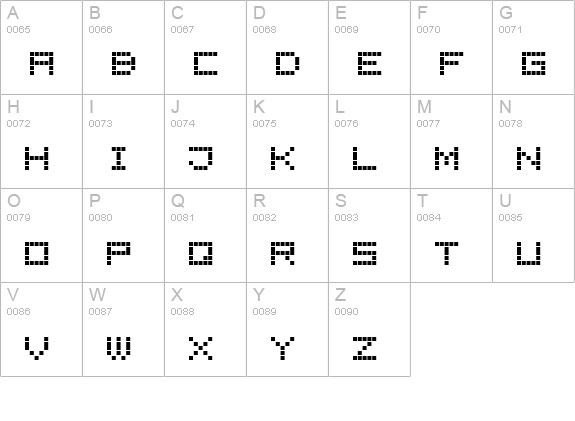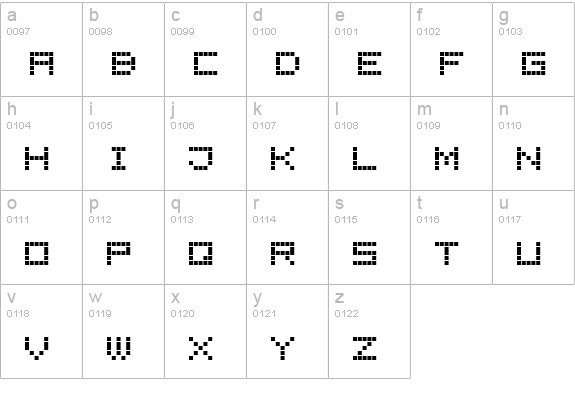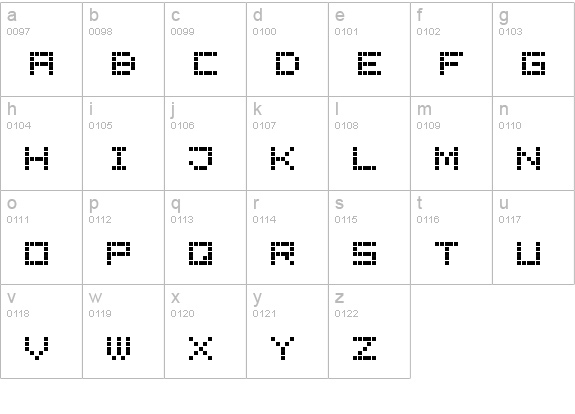
LED Display7 Font Details
LED Display7 font is a stunning and eye-catching typeface that will surely grab attention and make any design project stand out. This font is perfect for any digital or electronic-themed design, as it mimics the appearance of LED lights, providing a modern and futuristic feel. The LED Display7 font features bold and sharp characters that are easy to read, even from a distance. Its unique design adds a touch of sophistication and professionalism to any project, making it ideal for advertisements, signage, posters, banners, and more. One of the best things about LED Display7 font is that it is freely available to download at FontsMarket.com. This means that you can easily access and use this font in your designs without any restrictions. Whether you are a professional designer or just starting out, this free font is an excellent choice to enhance your creative projects. With LED Display7 font, you can easily create captivating headlines, attention-grabbing titles, or stylish logos. Its versatility allows you to experiment with different sizes, colors, and effects to achieve the desired impact. Whether you want to create a sleek and modern design or a retro-inspired look, this font has got you covered. Don't miss out on the opportunity to add LED Display7 font to your font library. Download it for free at FontsMarket.com and unleash your creativity. Enhance your designs with this captivating font and watch as your projects come to life with style and professionalism.